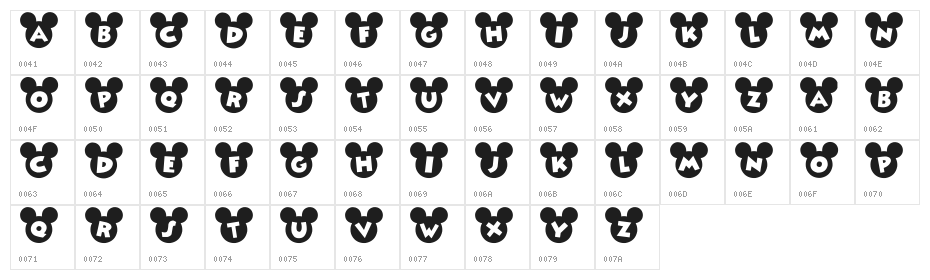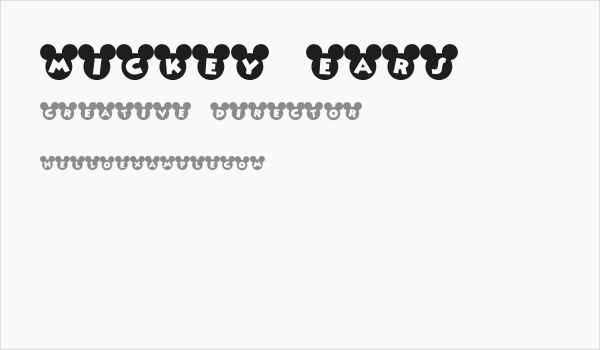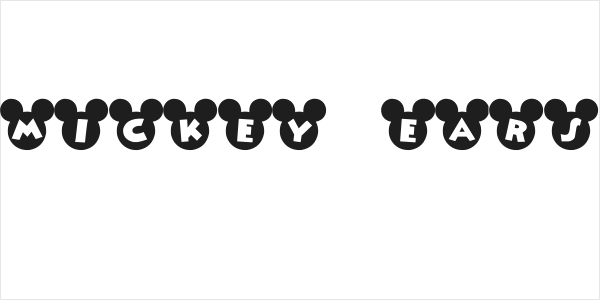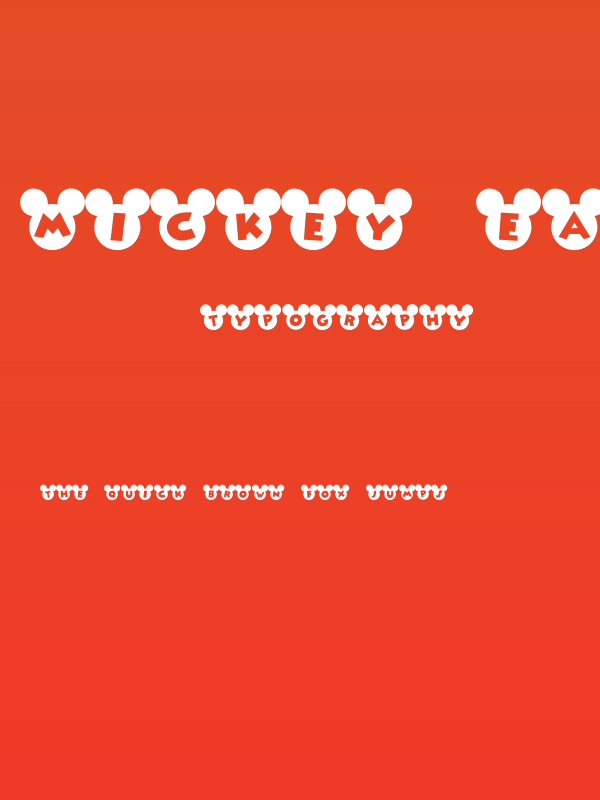
Mickey Ears Font
Mickey Ears Description
This playful and whimsical font features bold, uppercase letters encased within iconic mouse ear silhouettes. Each character is uniquely designed to capture a sense of fun and nostalgia, making it ideal for projects that aim to evoke a sense of joy and childhood wonder. The letters are evenly spaced within the circular shapes, ensuring readability while maintaining a distinctive style. The font's boldness and unique design make it stand out, perfect for creative and themed projects.
| Use Case | Headlines, Logos, Themed Events |
| Proposed Projects | Ideal for children's party invitations, themed event signage, playful branding, and merchandise design. |